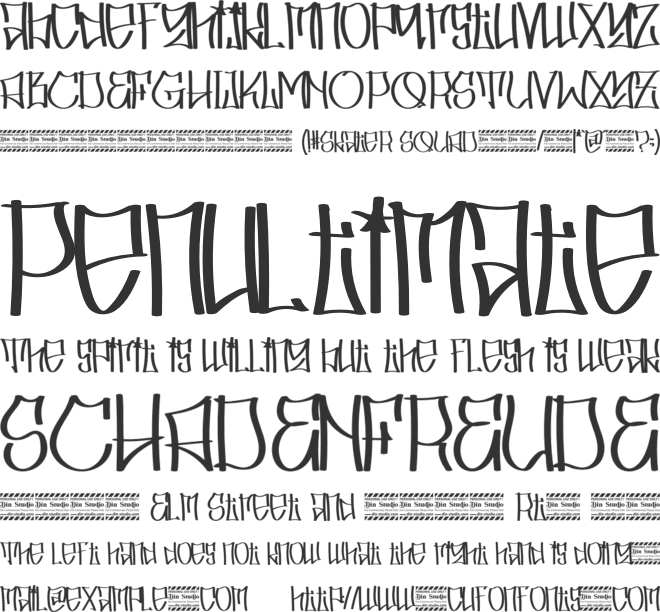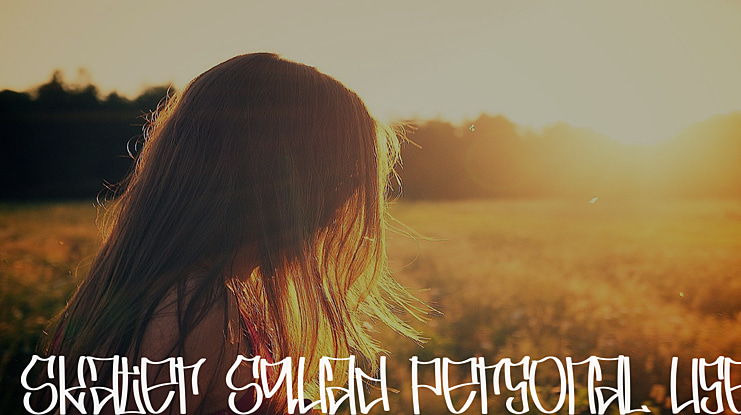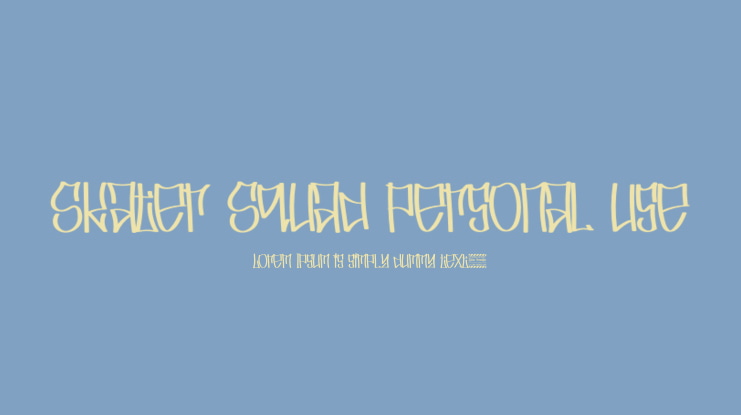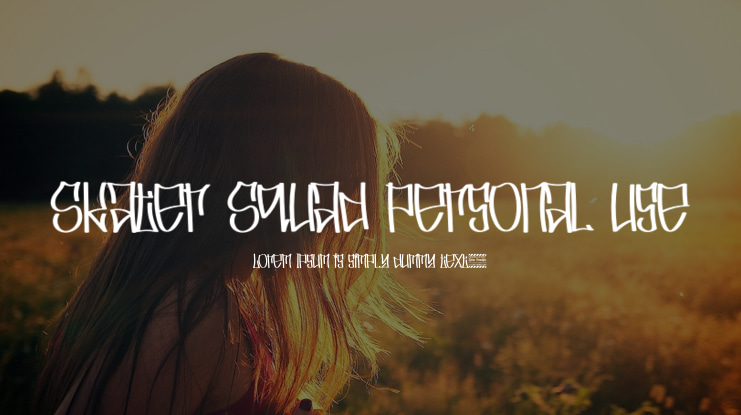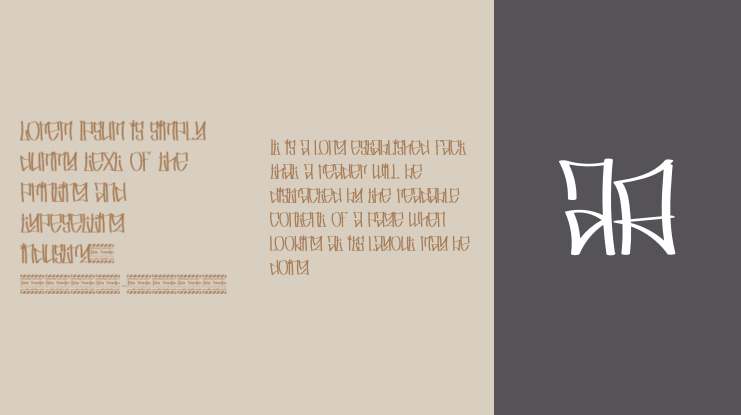
Skater Squad is a bold and angular with a distinct street vibe. This font can be used for a host of
different content needs and projects. Create gorgeous printed quotes, standout packaging, or beautiful
t-shirts! You can even use it to create amazing headings, logos, menus, and social media graphics.